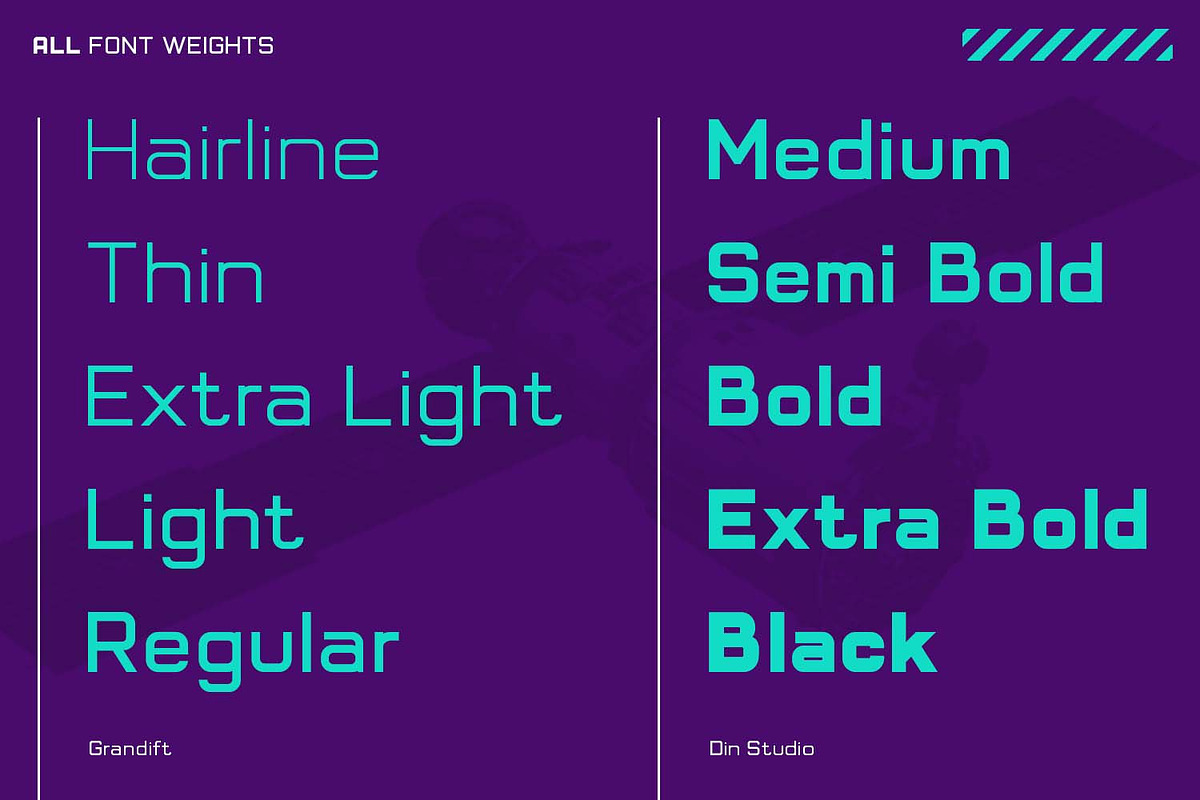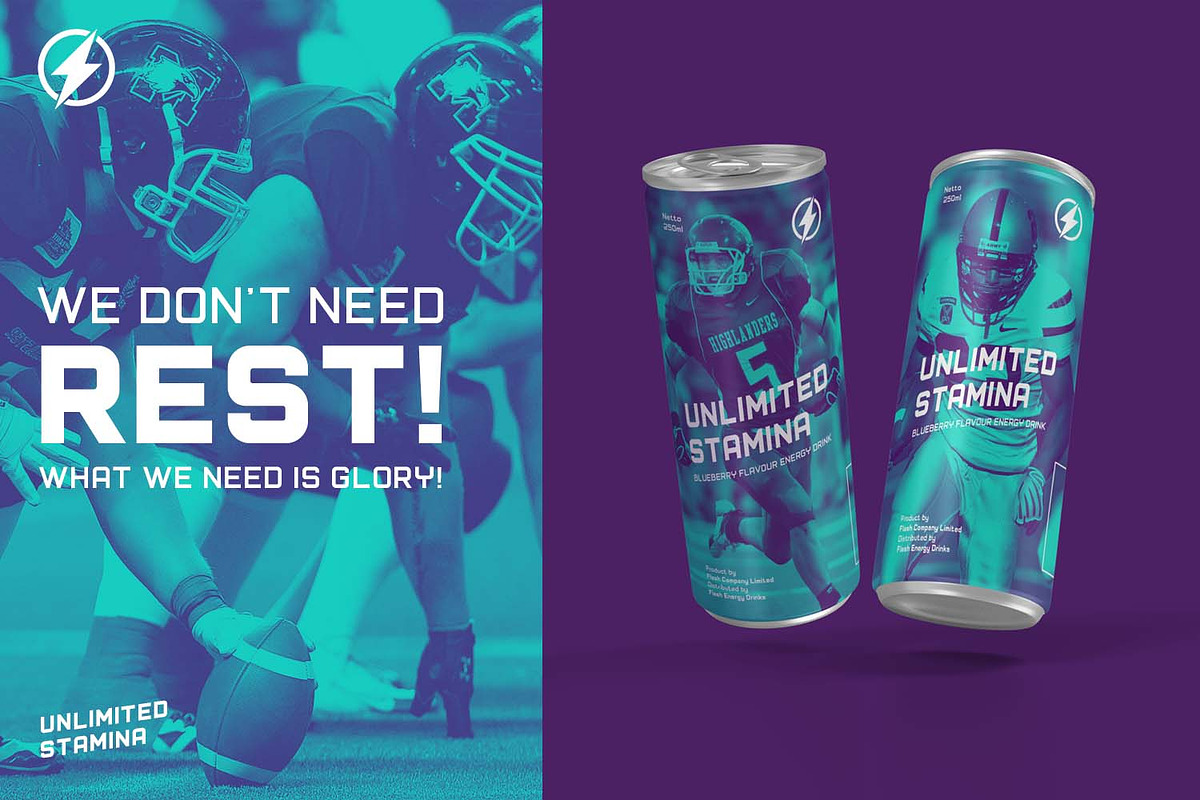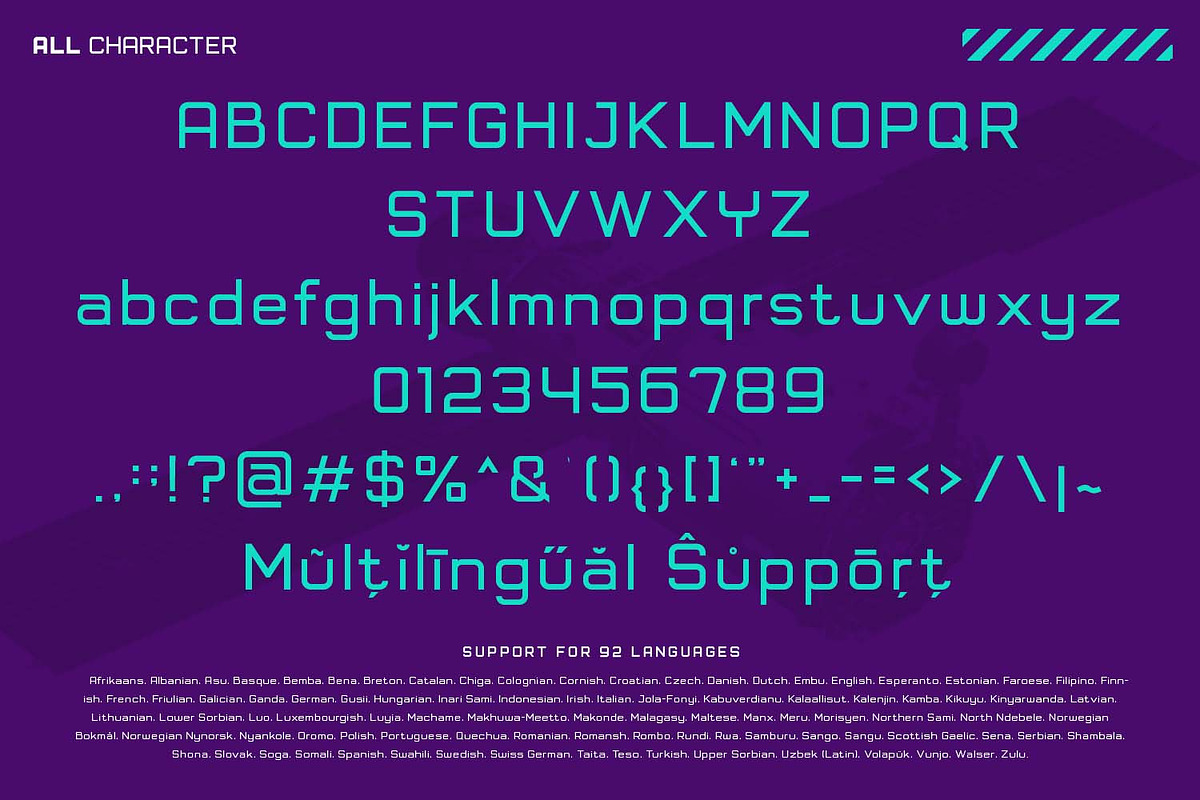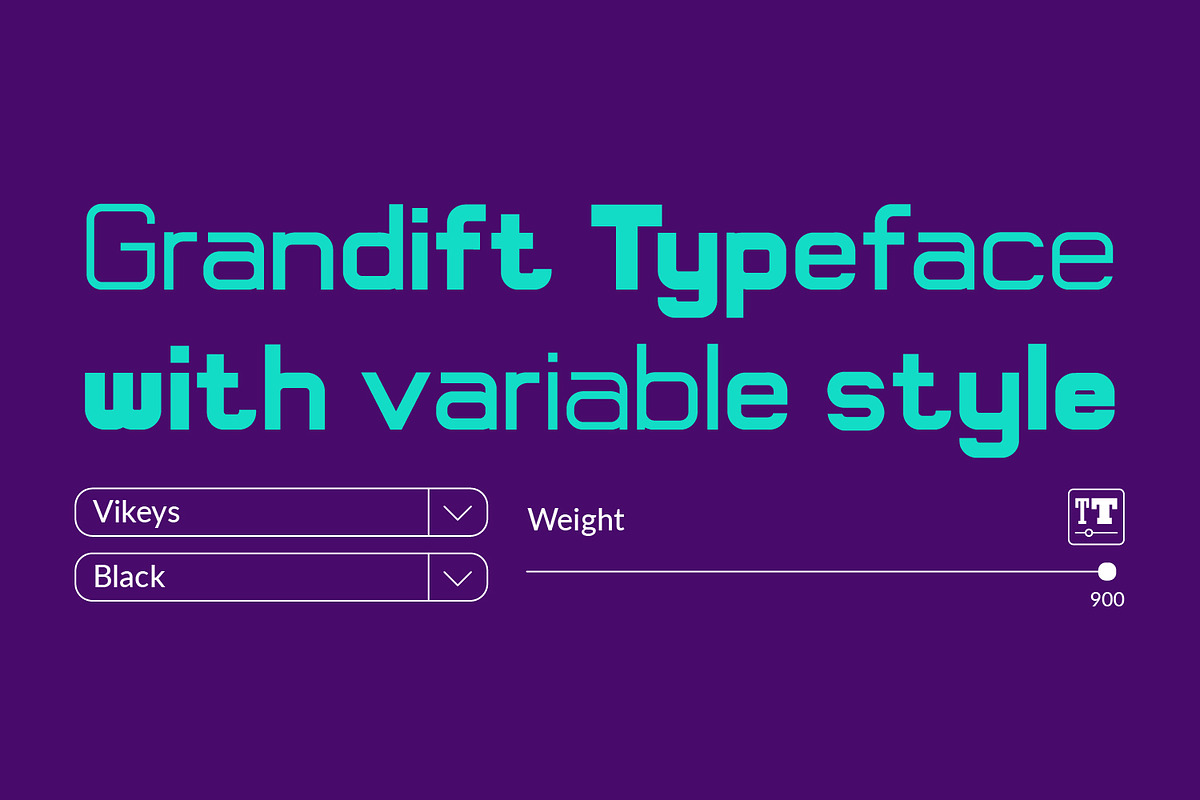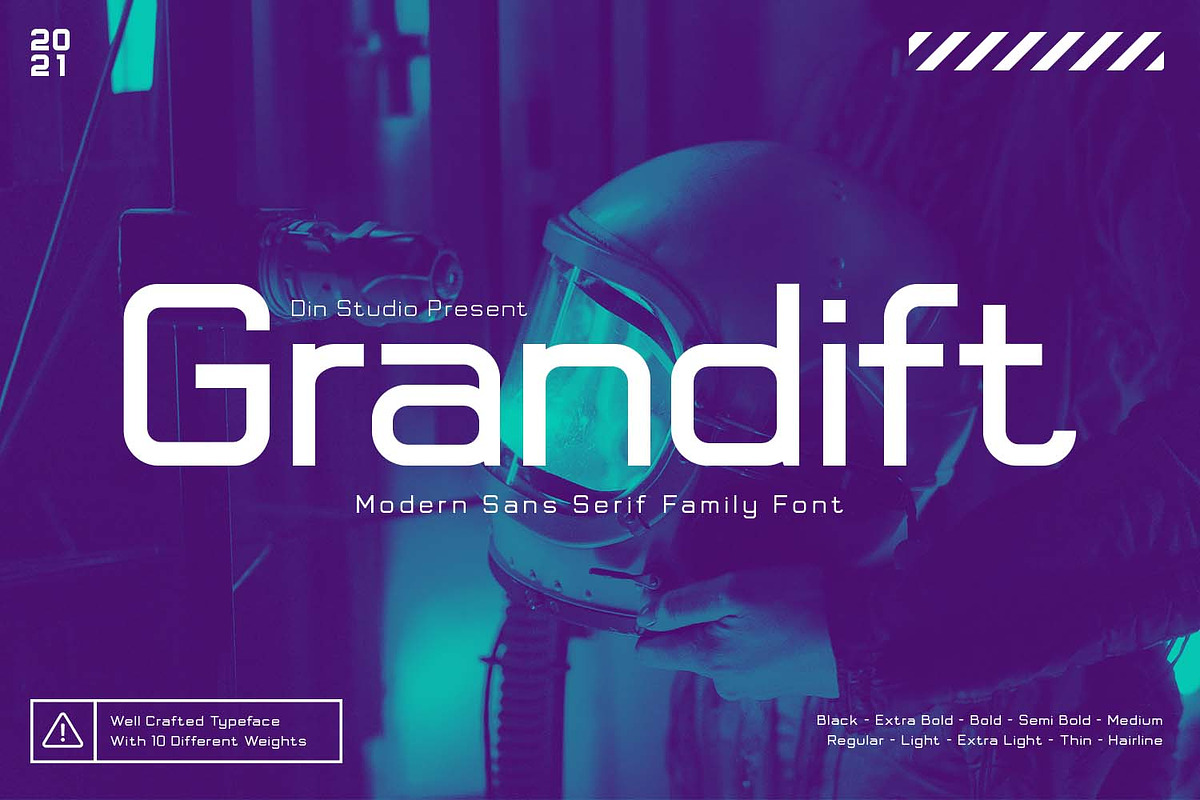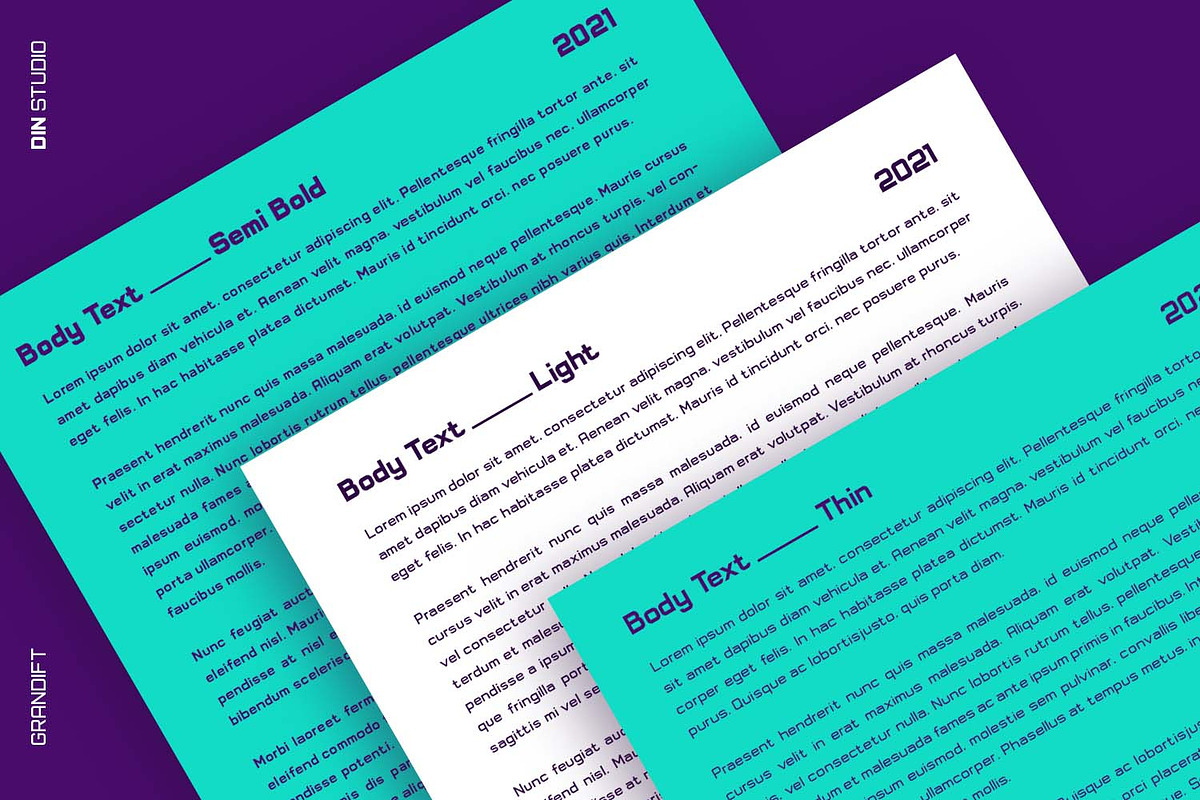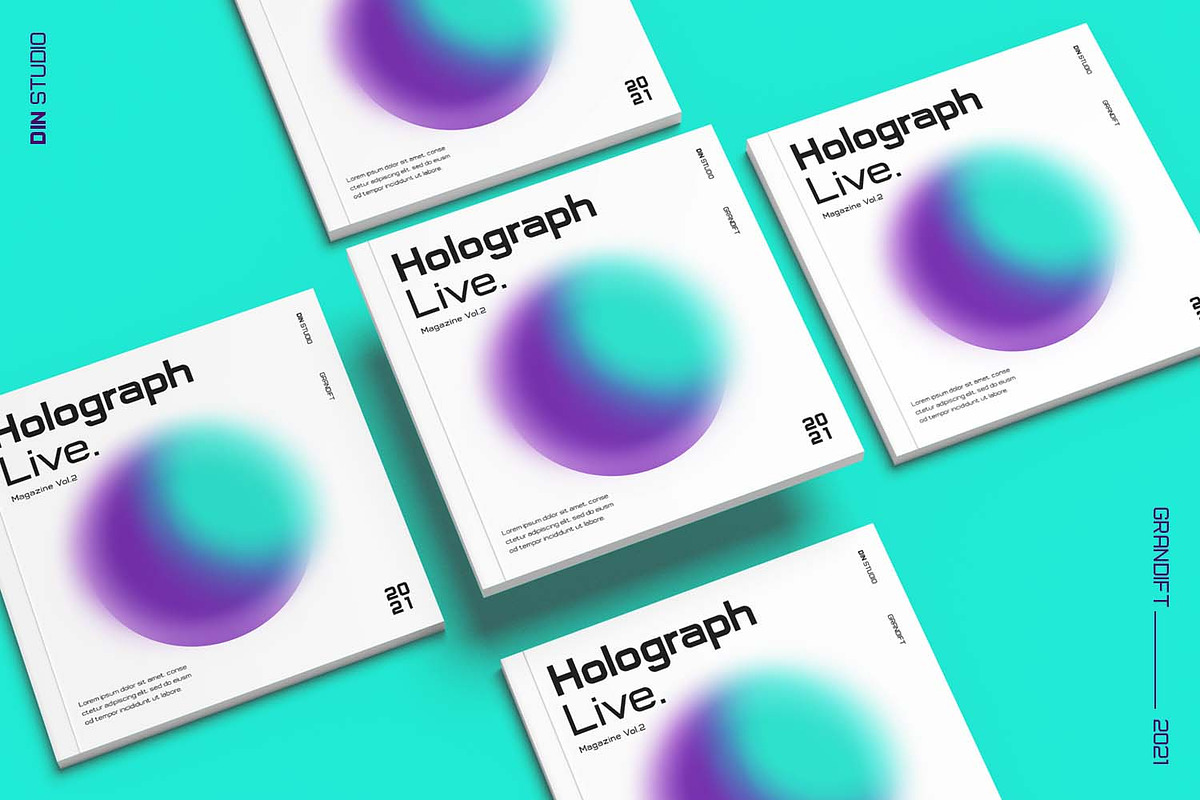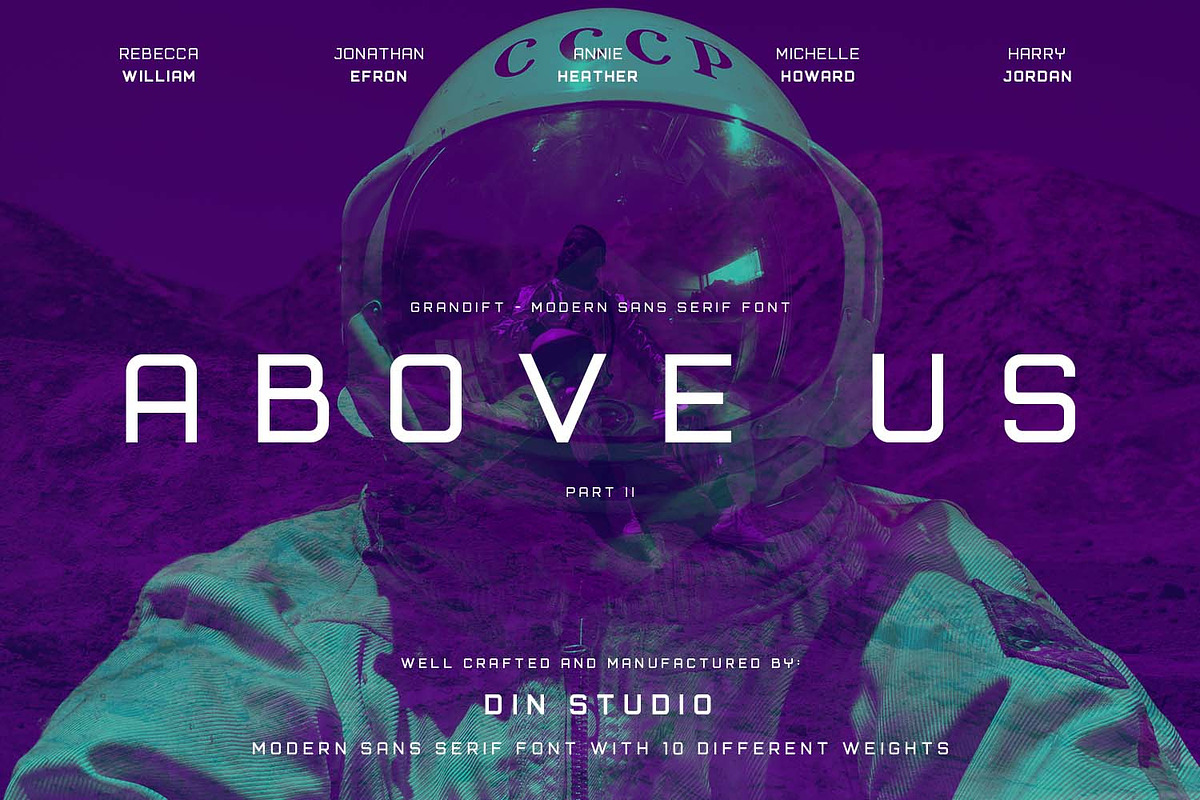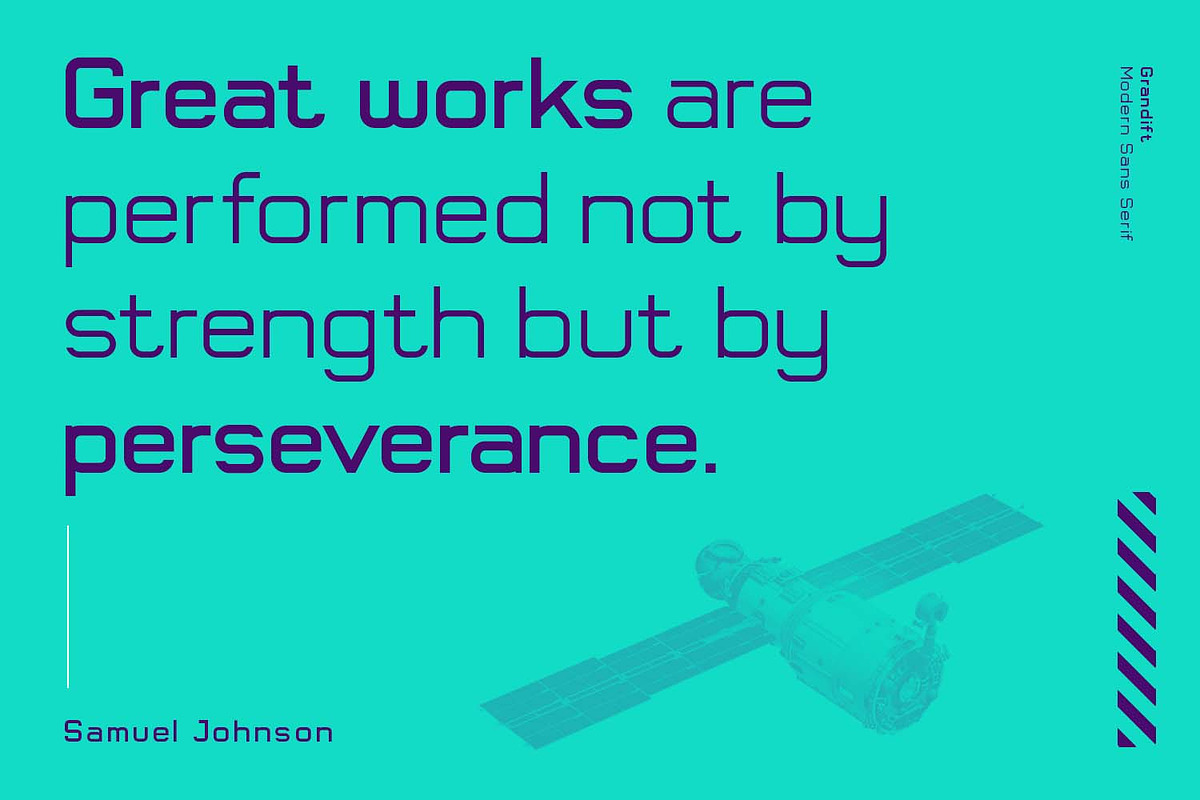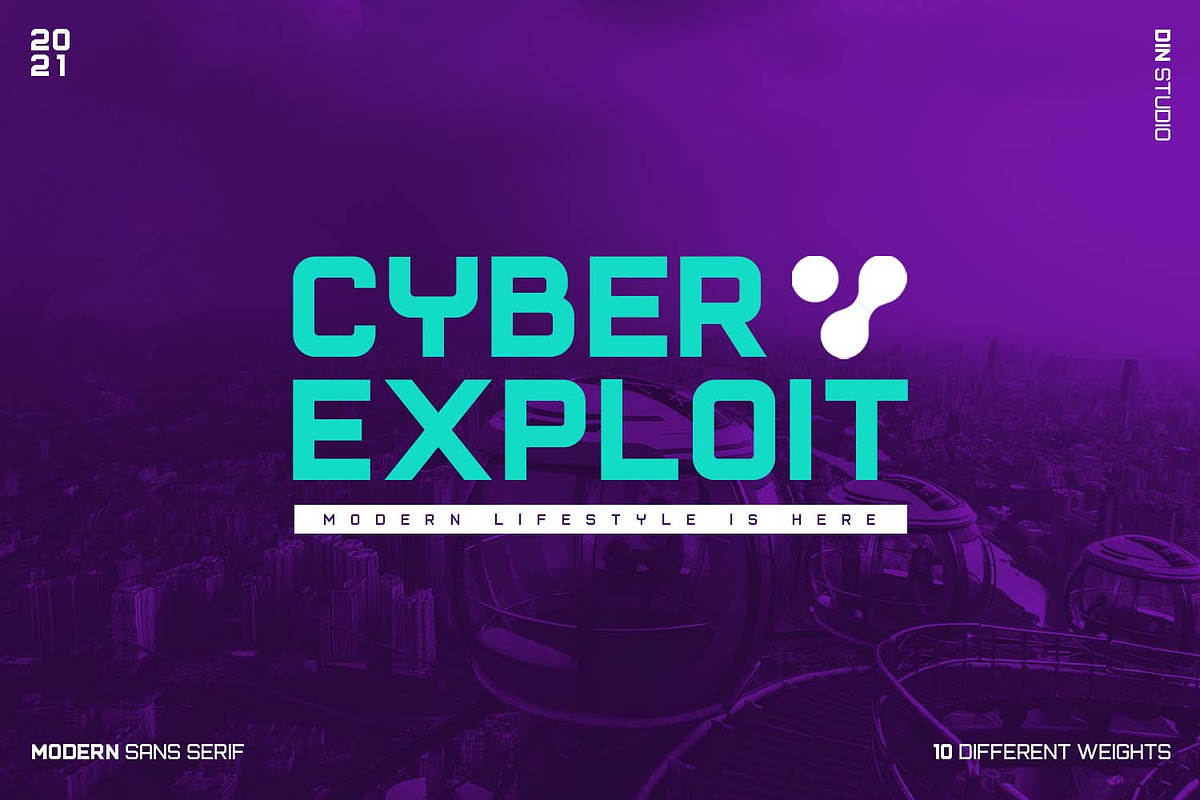
Grandift
Are you trying to find a charming font for your audience, clients, and customers? We have all the best solutions for any of your designs.
Let’s introduce you to the Grandift Sans Serif Font Family. The Grandif is a font package to please you with a variety of choices for your own project consisting of eight different choices of thickness level. Make your dream design come true and add elegant, modern styles to Grandift as this font expresses clean eligible displays.
Use Grandift for various designs, such as posters, banners, logos, book covers, headings, printed products, merchandise, social media, and more. Find out more ways to use this font by taking a look at the font preview.